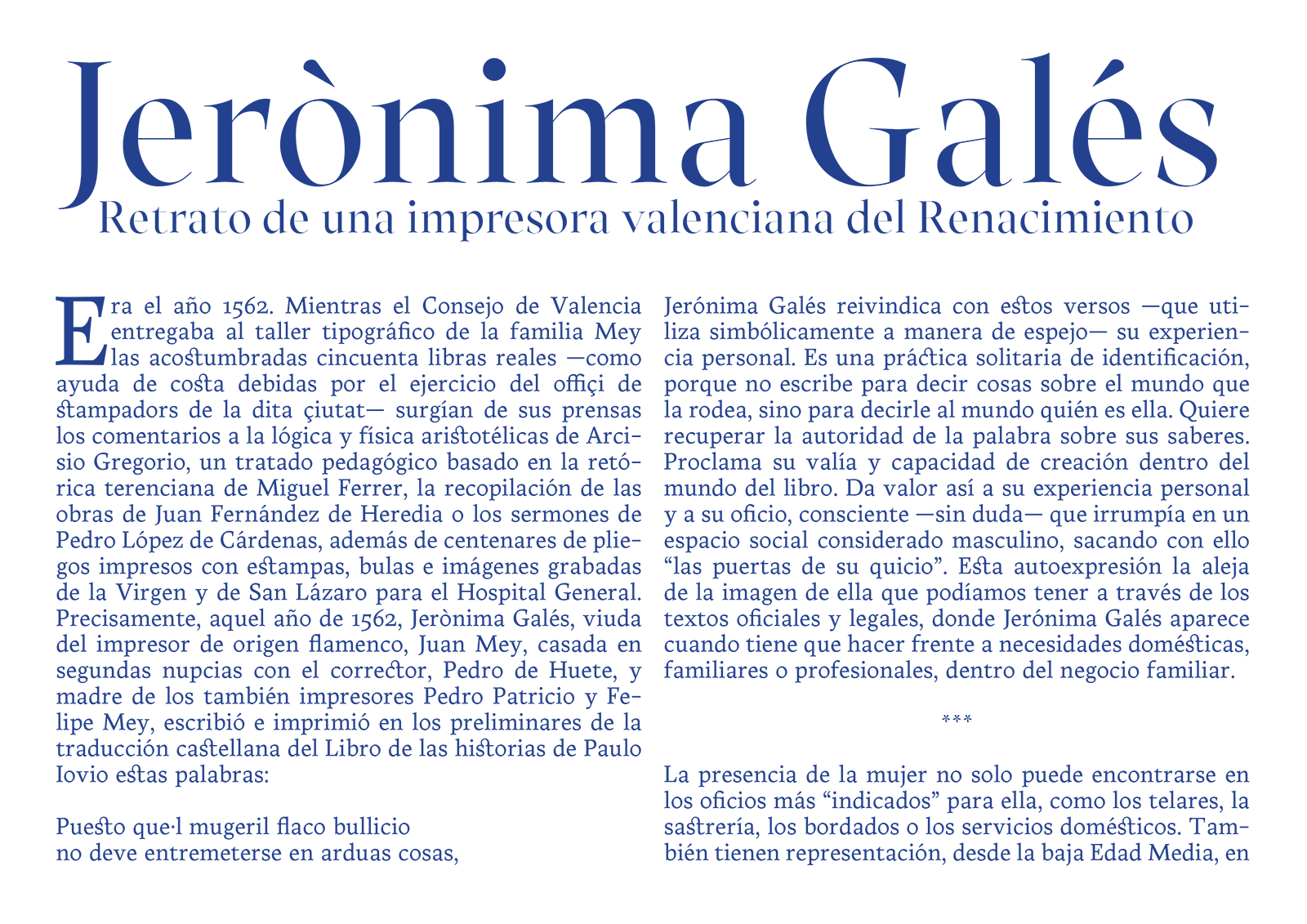
Carmen Maria
Carmen Maria family were born during the five weeks of Type@Paris, and receives his name as a tribute to my wife (the original Carmen Maria), who accompanied me on this adventure. This type family is based on carolingian calligraphy, traced, redrawn and developed finally in a humanistic serif font family with a calligraphic flavour. I invite you to look that at the axis, terminals and ductus but with a contemporary features as a moderated height on the ascendents and descendants.
The result are two typefaces, designed for publications about the history of typography on the modern times. They complement each other. Regular, nicely balanced and historically inspired, works perfectly on text.The second, a regular variant with high-contrast (thanks to the advice of Jean François Porchez), perfect for fancy headlines and display.
The idea for the future of this font family is to complete the bold and italic of the both variants for be completely useful for editorial use.